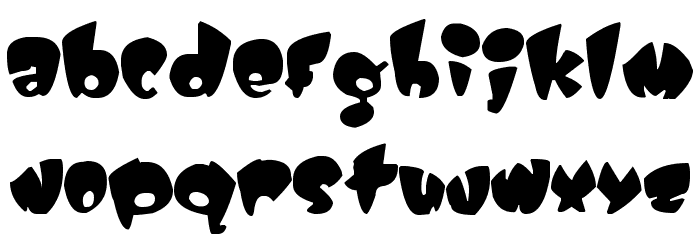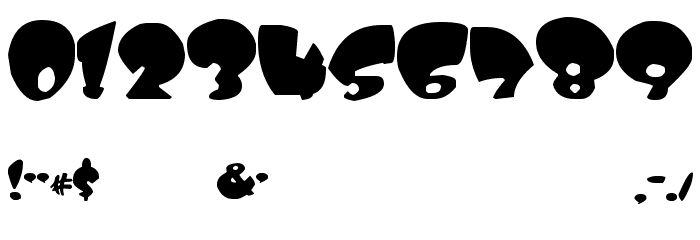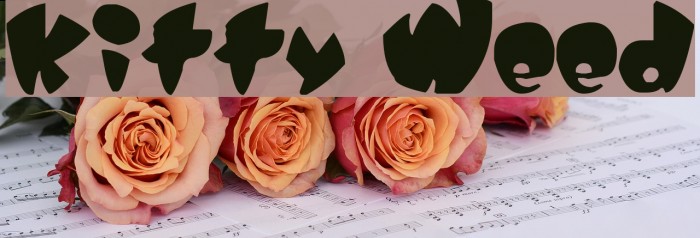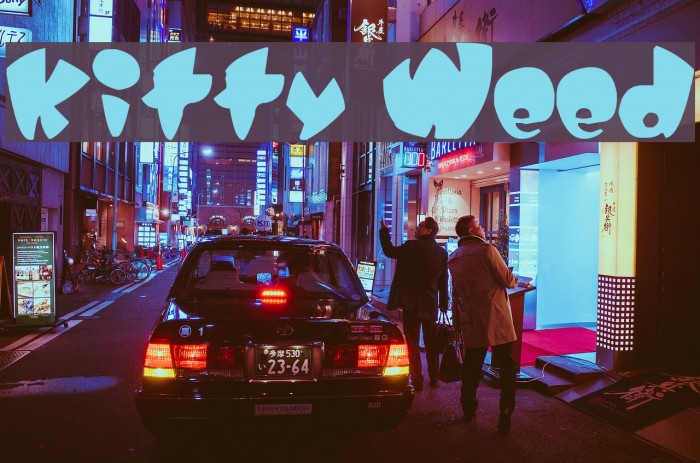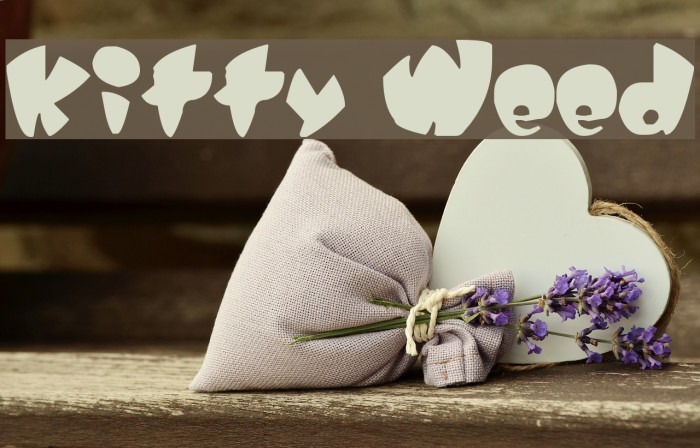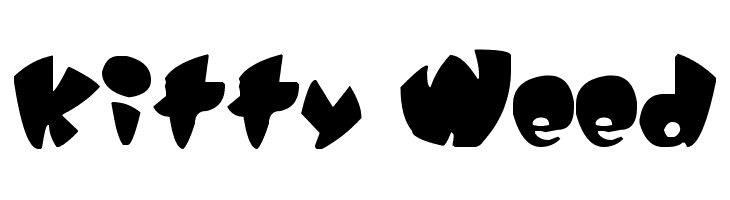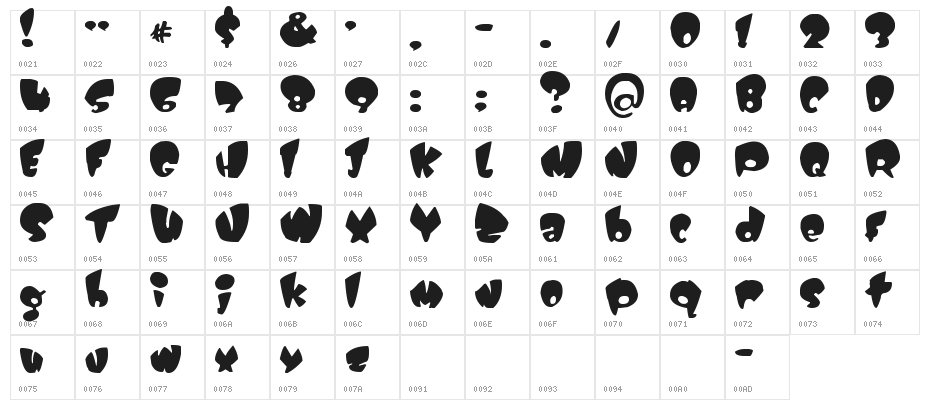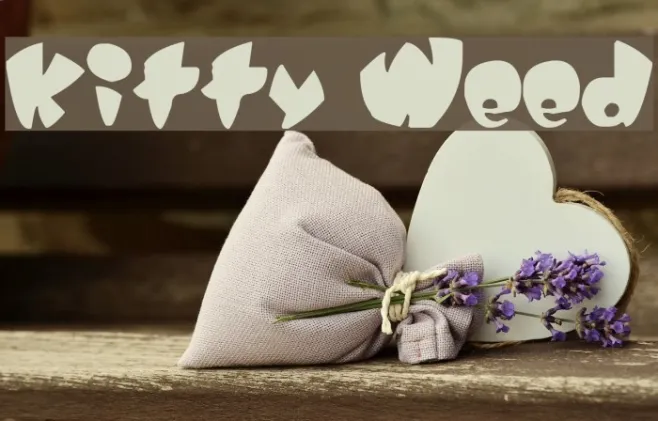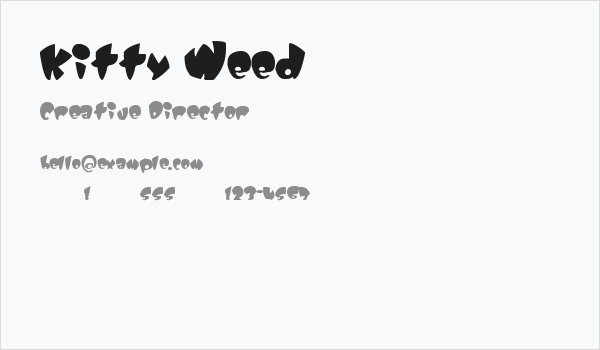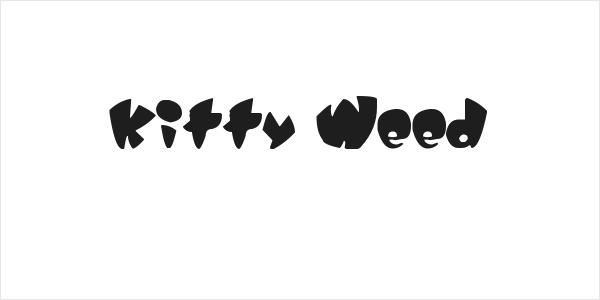
Kitty Weed Font
This playful and bold font features a unique, whimsical design with irregular shapes and a chunky appearance. The characters are rounded and have a hand-drawn feel, giving them a friendly and approachable look. The font's distinctive style is characterized by its thick strokes and uneven edges, which add a sense of fun and creativity. The letters are closely spaced, enhancing the compact and cohesive feel of the typeface. This font is perfect for projects that require a touch of humor and personality, making it ideal for children's books, playful branding, or creative posters.
A playful, bold font with a whimsical, hand-drawn style and chunky, irregular shapes.
- Proposed Projects: Children's books, playful branding, creative posters, party invitations, and comic strips.
- Character Spacing: Tight
- Overall Style: Playful, Whimsical